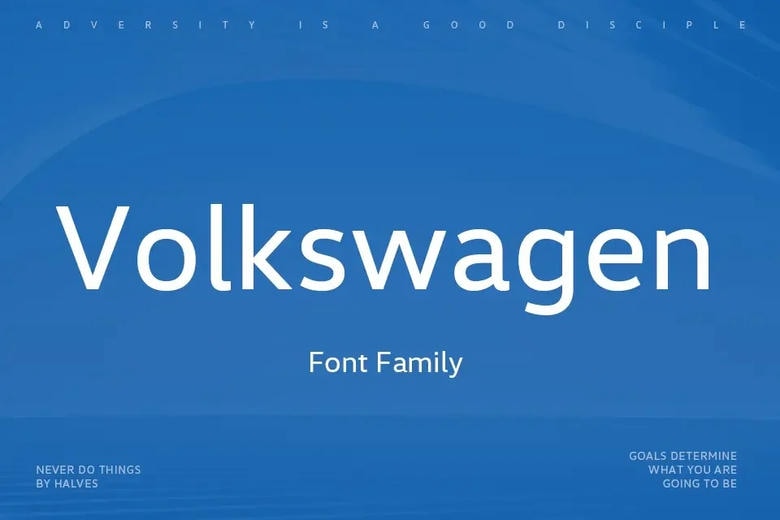
Volkswagen Font Family
Volkswagen font is the sans serif typeface family. This font typeface has 14 font styles and Soft Maker has published this font. Volkswagen is the famous car brand company. It’s a Sans Serif font which resembles Futura fonts at the same time mixing in the hotter facets of humanist fonts. First-class choose for typographic posters, and for records.
Volkswagen Sans Serif Font Family